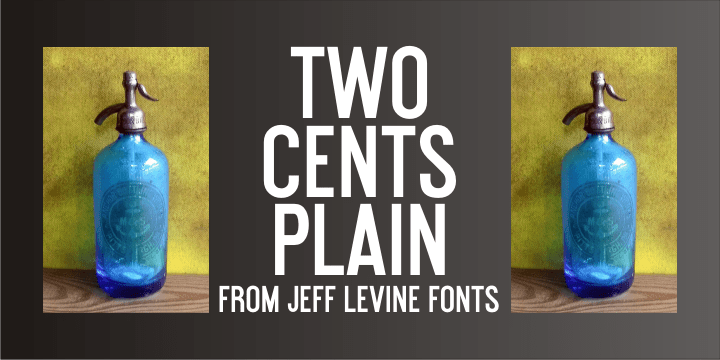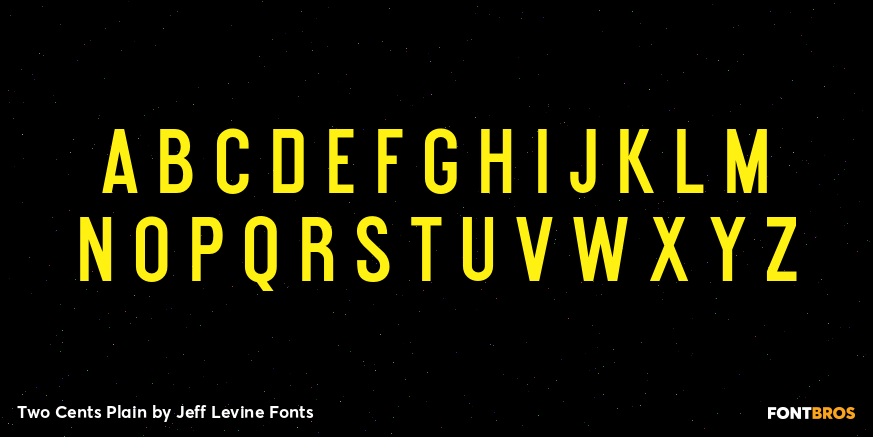
Two Cents Plain
Two Cents Plain JNL is a simple sans design for titling, sign work, display ads and so forth. The name is derived from the way folks in the Northeast used to ask for a glass of seltzer water at restaurants and soda fountains decades ago… "Give me a two cents plain."
It was always cheaper to order plain seltzer than to have flavored syrup added, and this was especially true in the years during the Great Depression when every penny made a difference.